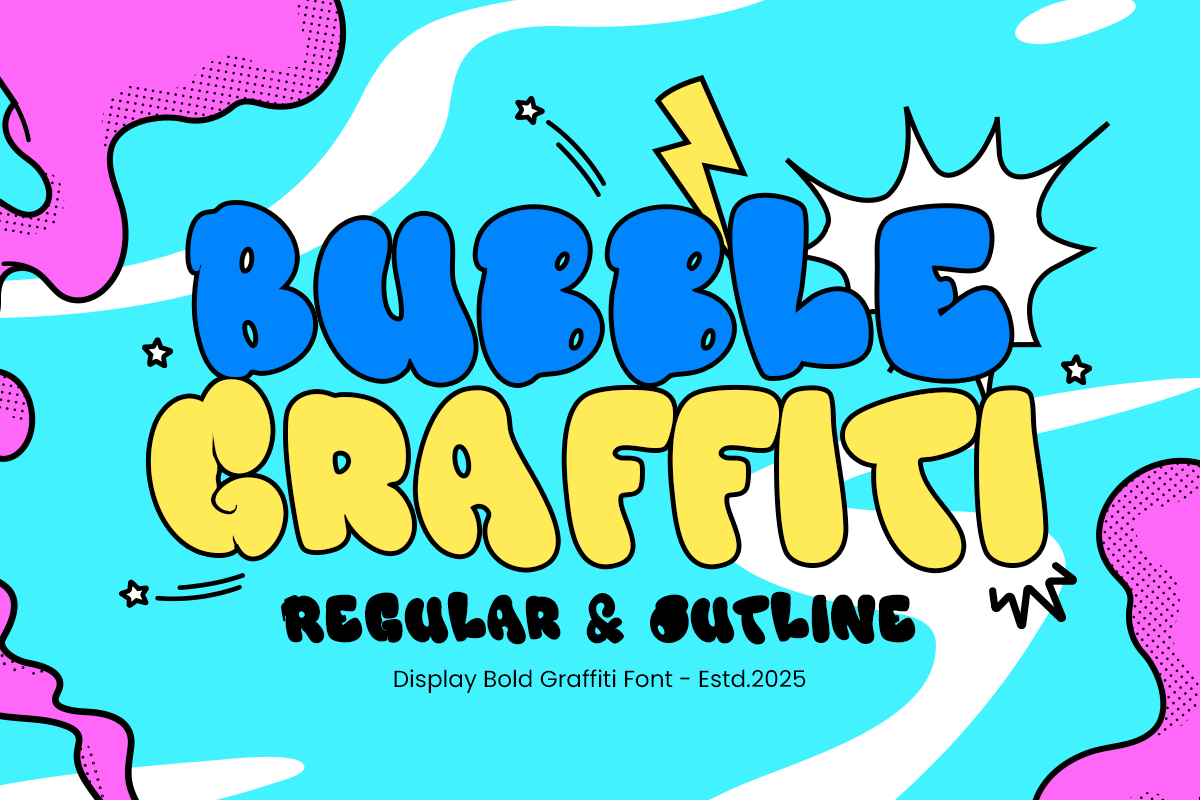
Bubble Graffiti
-Display Bold Graffiti Font
Bubble Graffiti - Display Bold Graffiti Font
BUBBLE GRAFFITI is a bold display graffiti font inspired by urban street art and vibrant city culture. With its thick, playful shapes and energetic style, BUBBLE GRAFFITI is perfect for posters, logos, branding, and projects that demand a strong, expressive presence.
Whether you’re designing streetwear graphics, music album covers, youth-oriented branding, or creative artwork, BUBBLE GRAFFITI delivers a bold, artistic flair that captures attention instantly. Its playful, modern shapes make it both fun and versatile for various creative projects.
BUBBLE GRAFFITI – Display Bold Graffiti Font Features
• Bold and playful graffiti-inspired letterforms
• Perfect for street art, posters, logos, and urban branding
• Energetic and expressive style for creative projects
• OpenType features for versatile typographic use
Bring the streets to your designs with BUBBLE GRAFFITI – the ultimate bold font for urban, creative, and edgy projects.